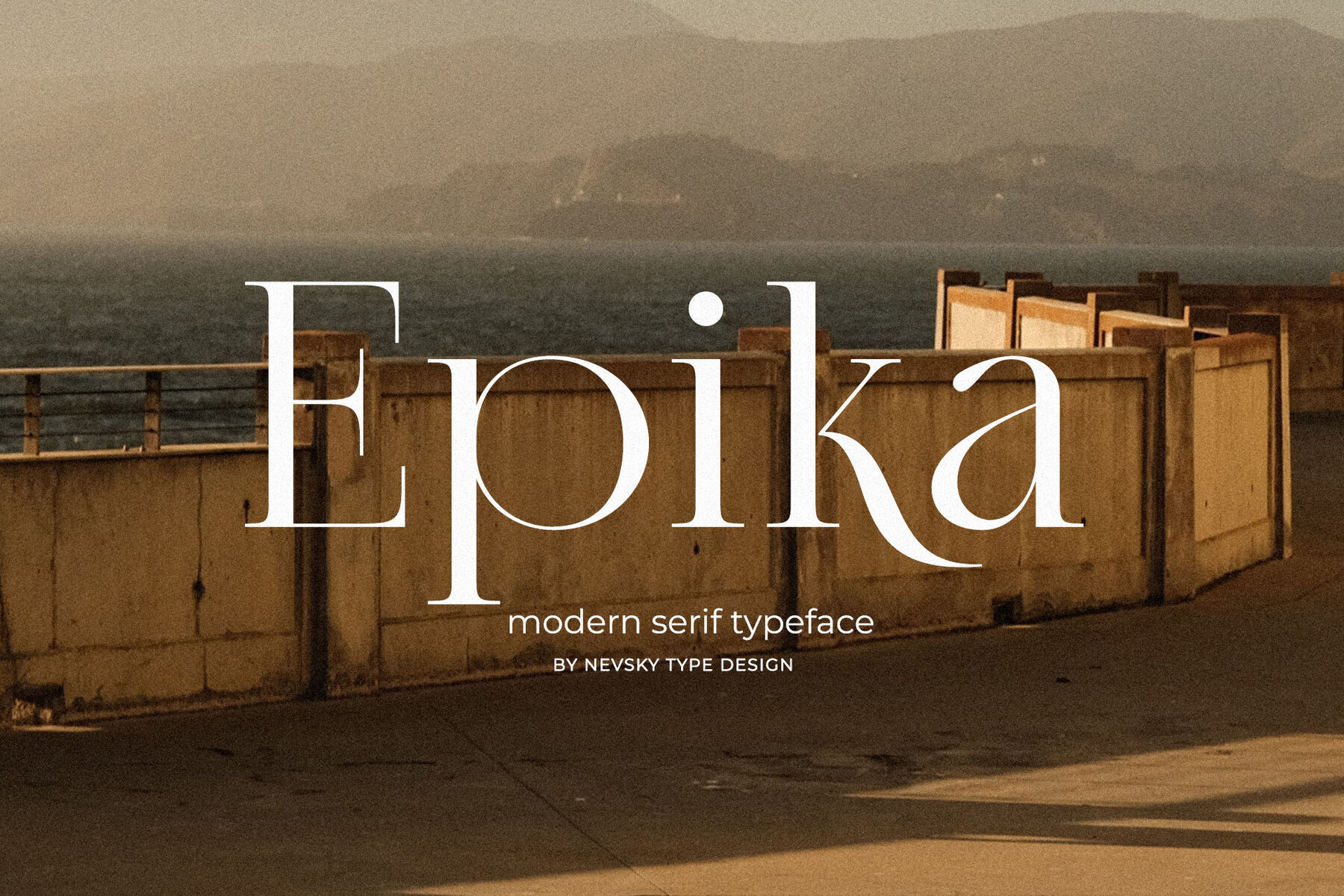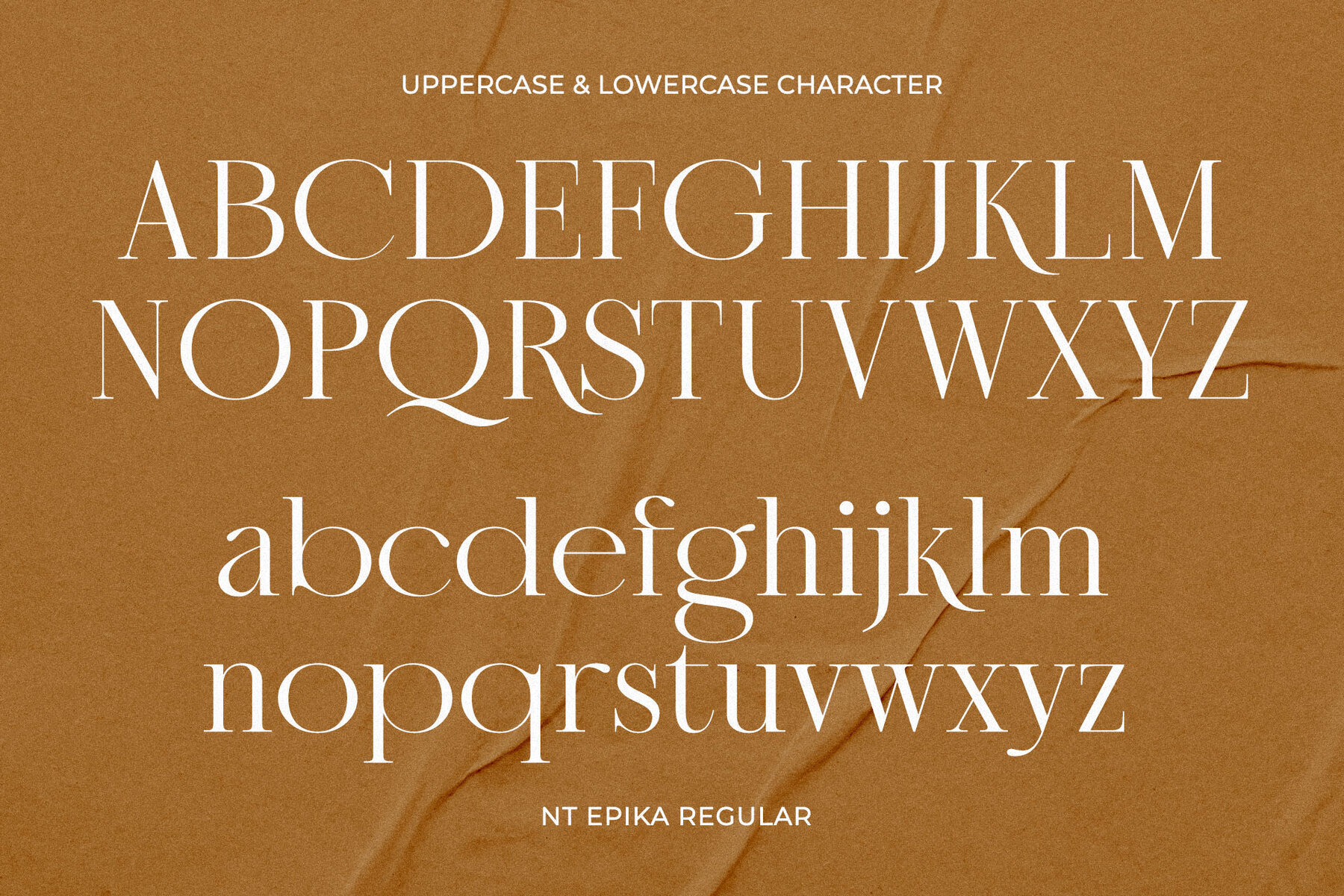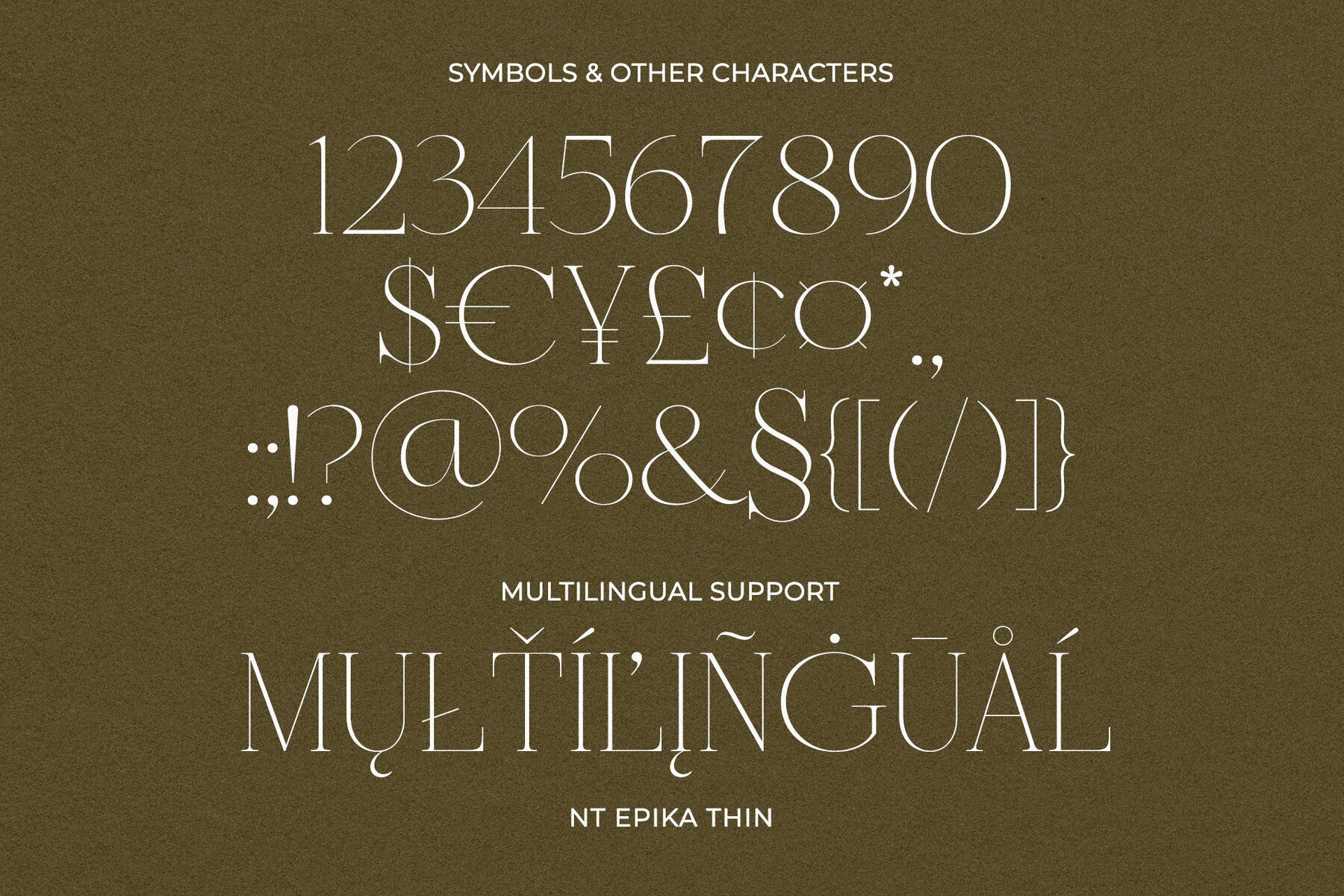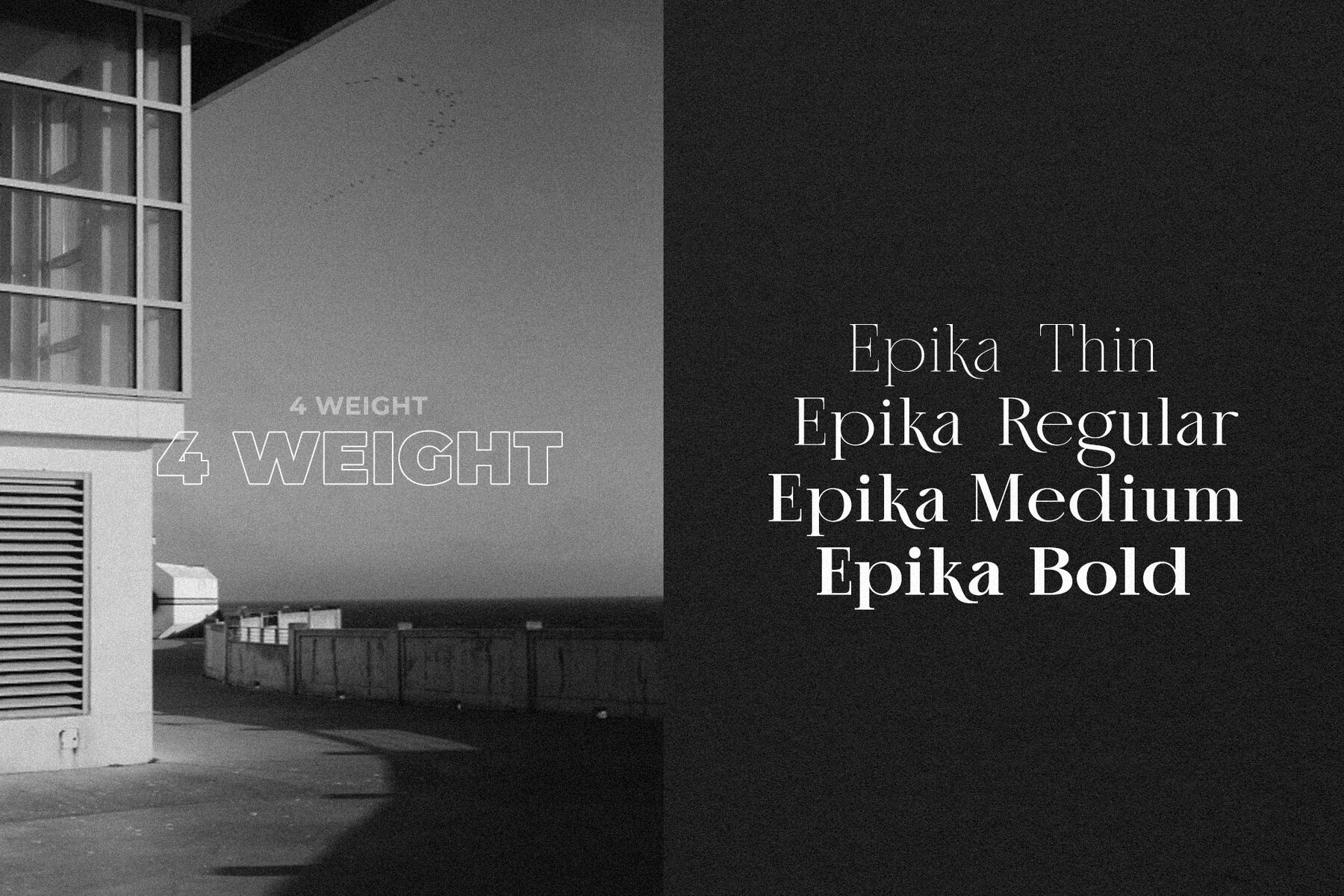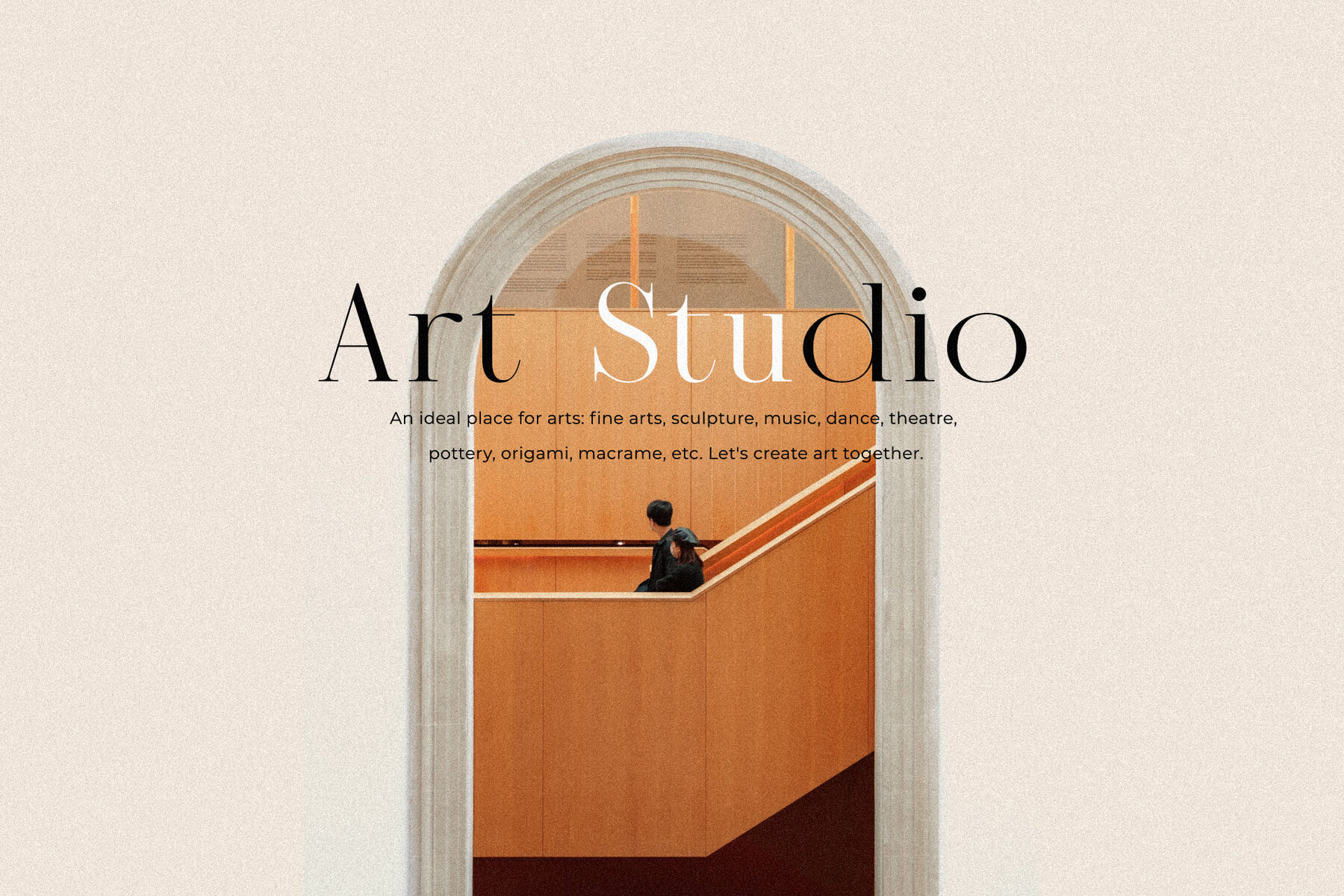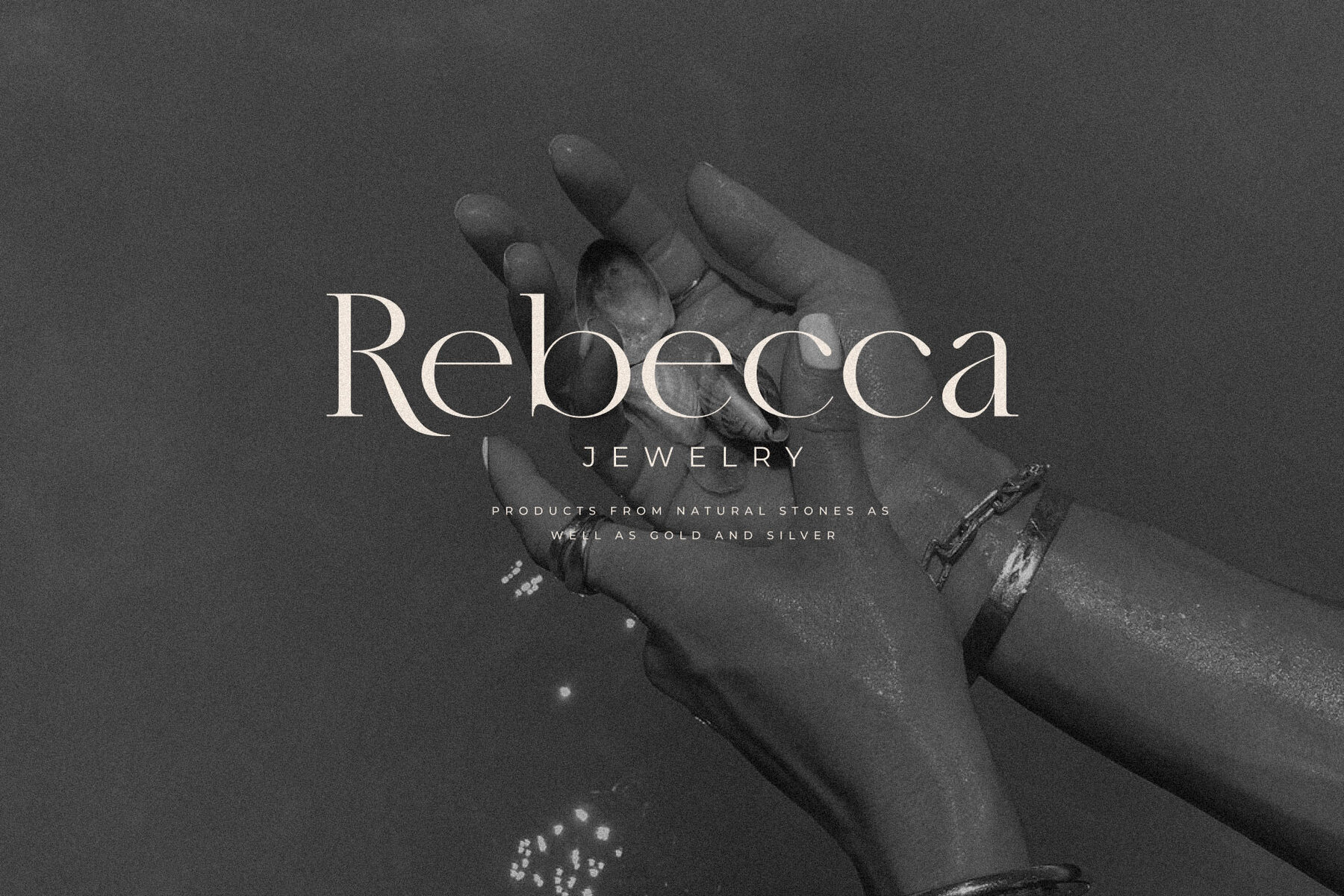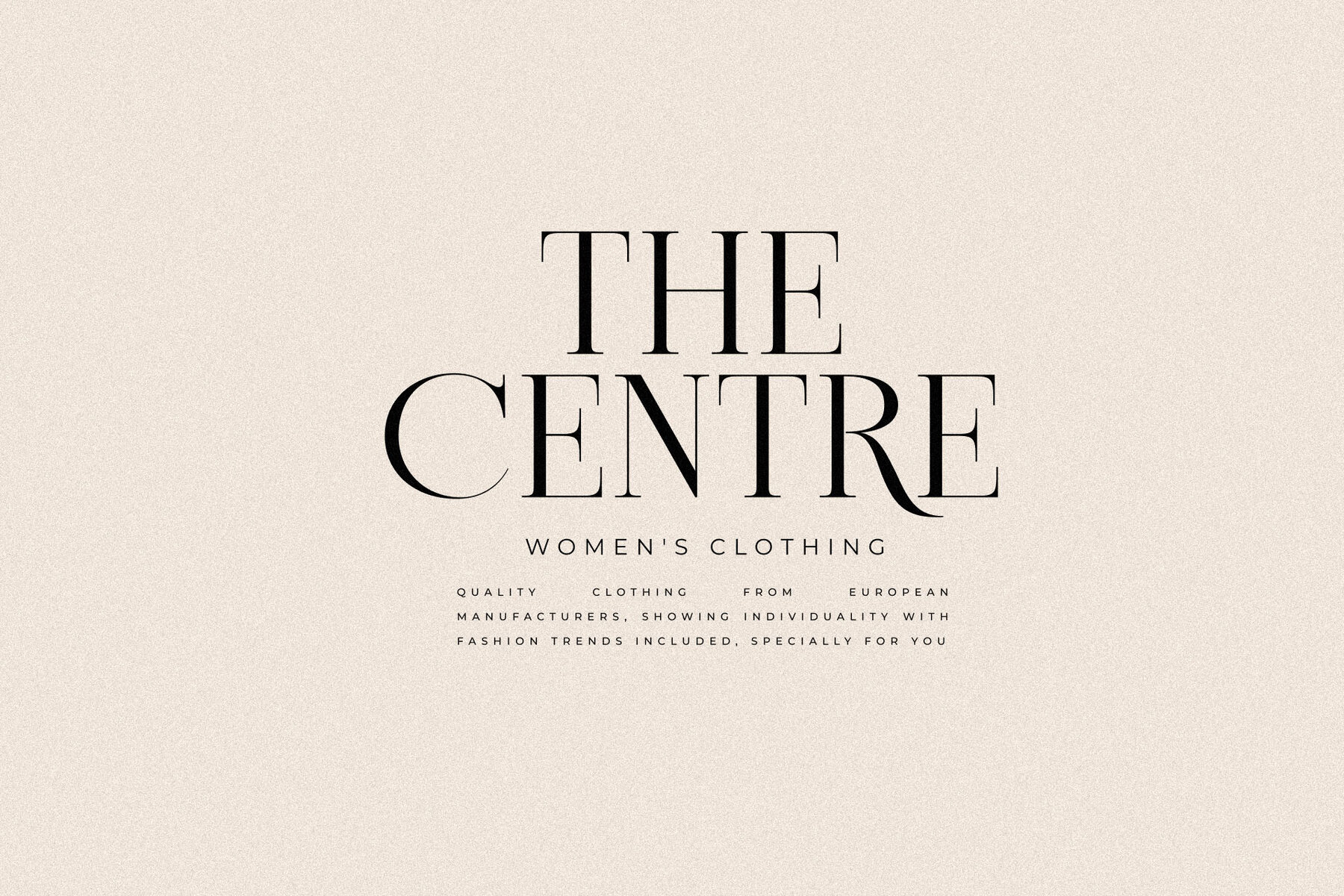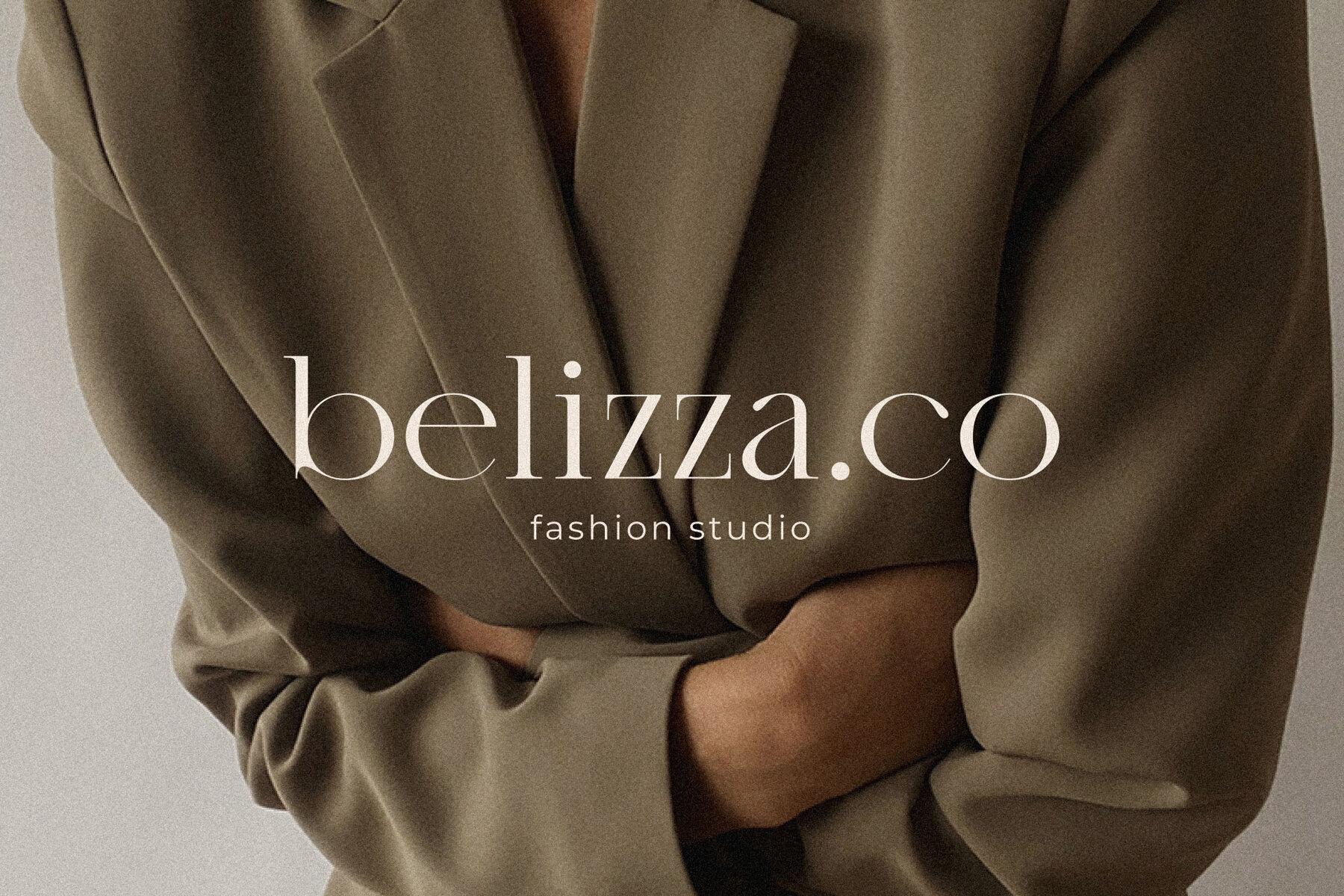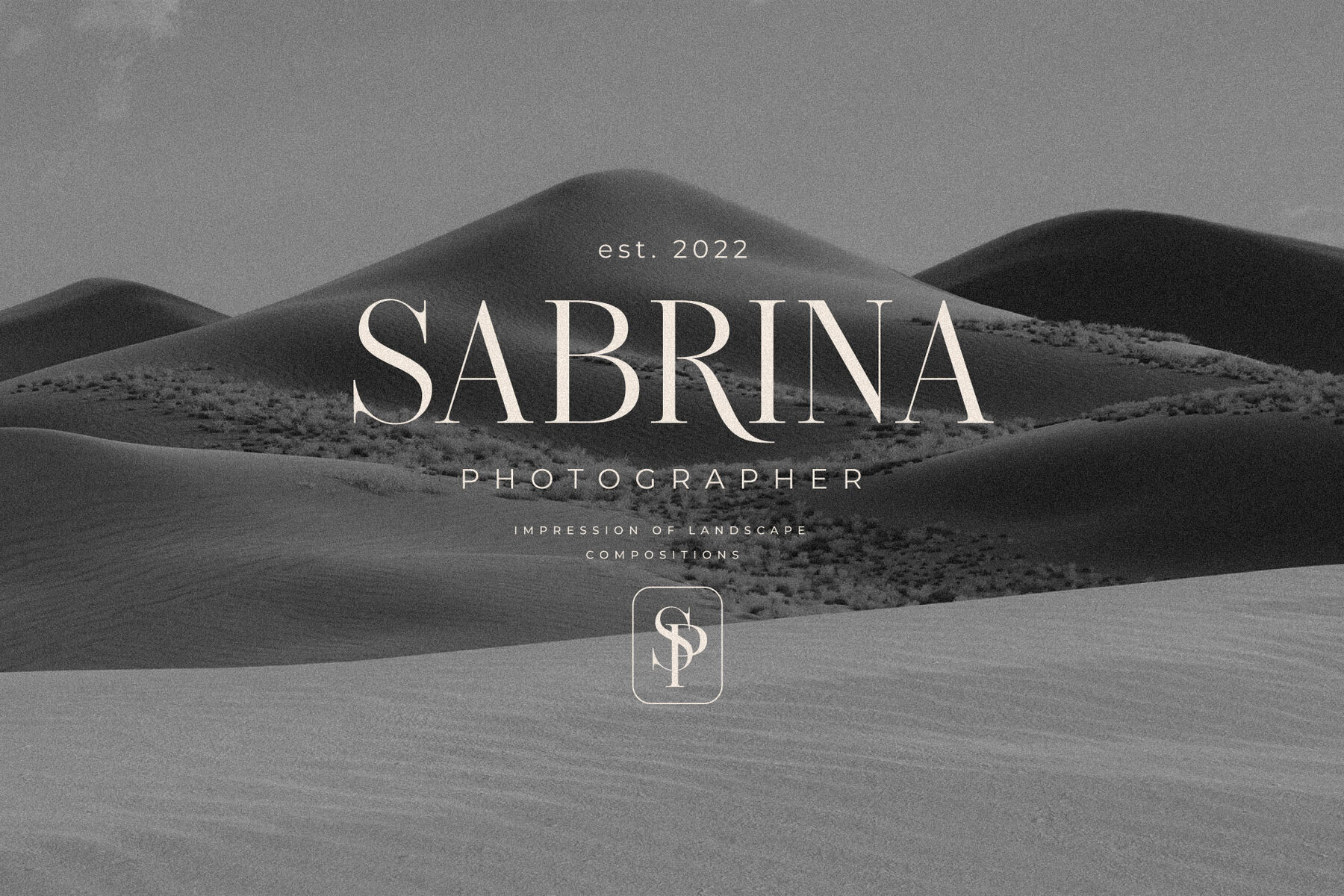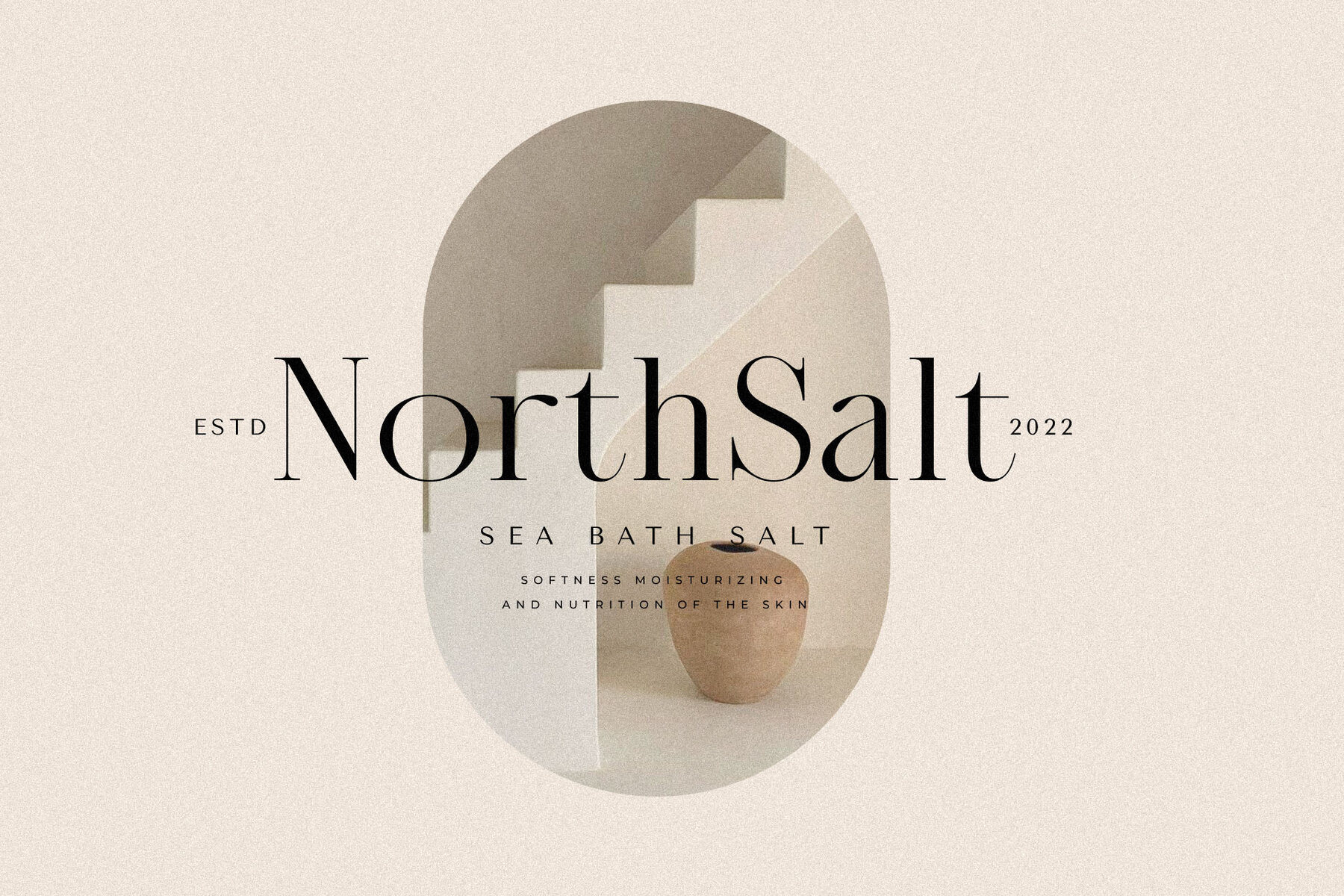
NT Epika Font
NT Epika, crafted by Nevsky Type, is a refined serif font that enhances any project with its elegance and versatility. With support for over 200 Latin-based languages, it offers extensive applicability for global audiences.NT Epika: Elegant Serif Offering Broad Language Support